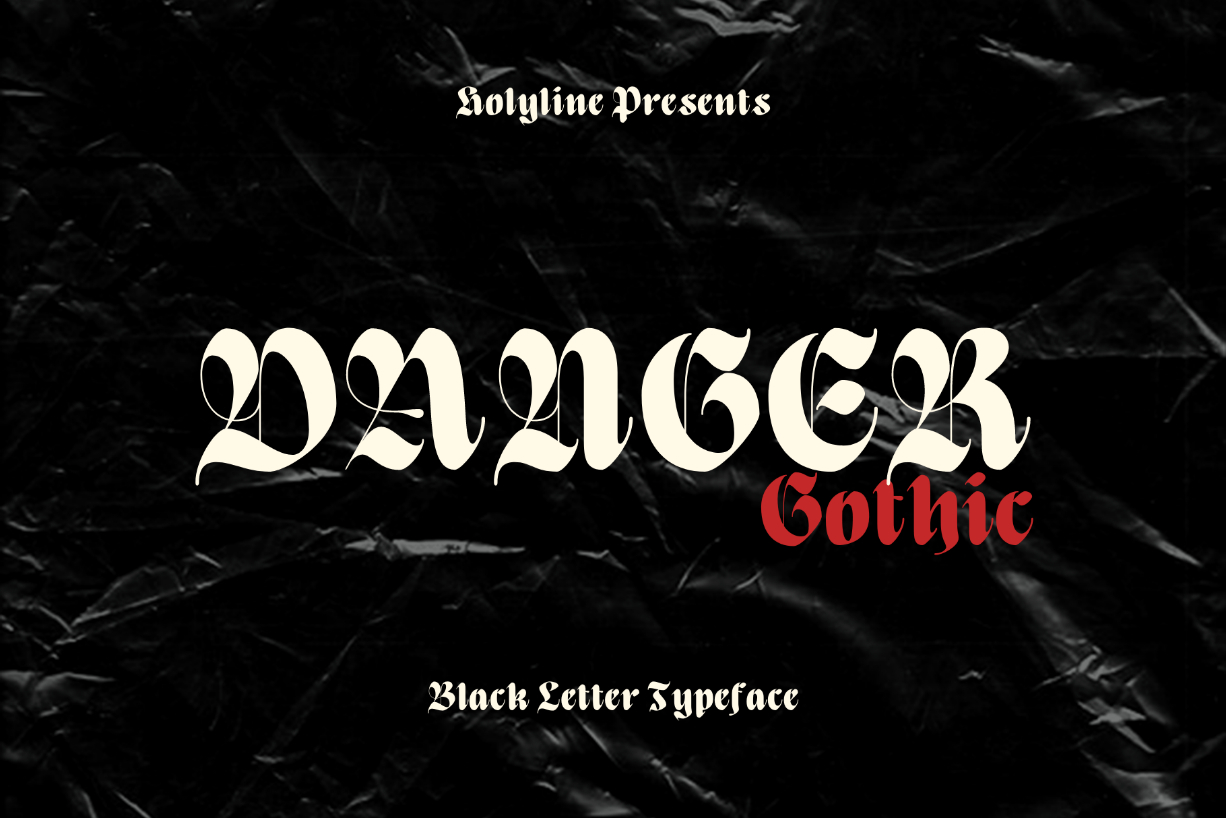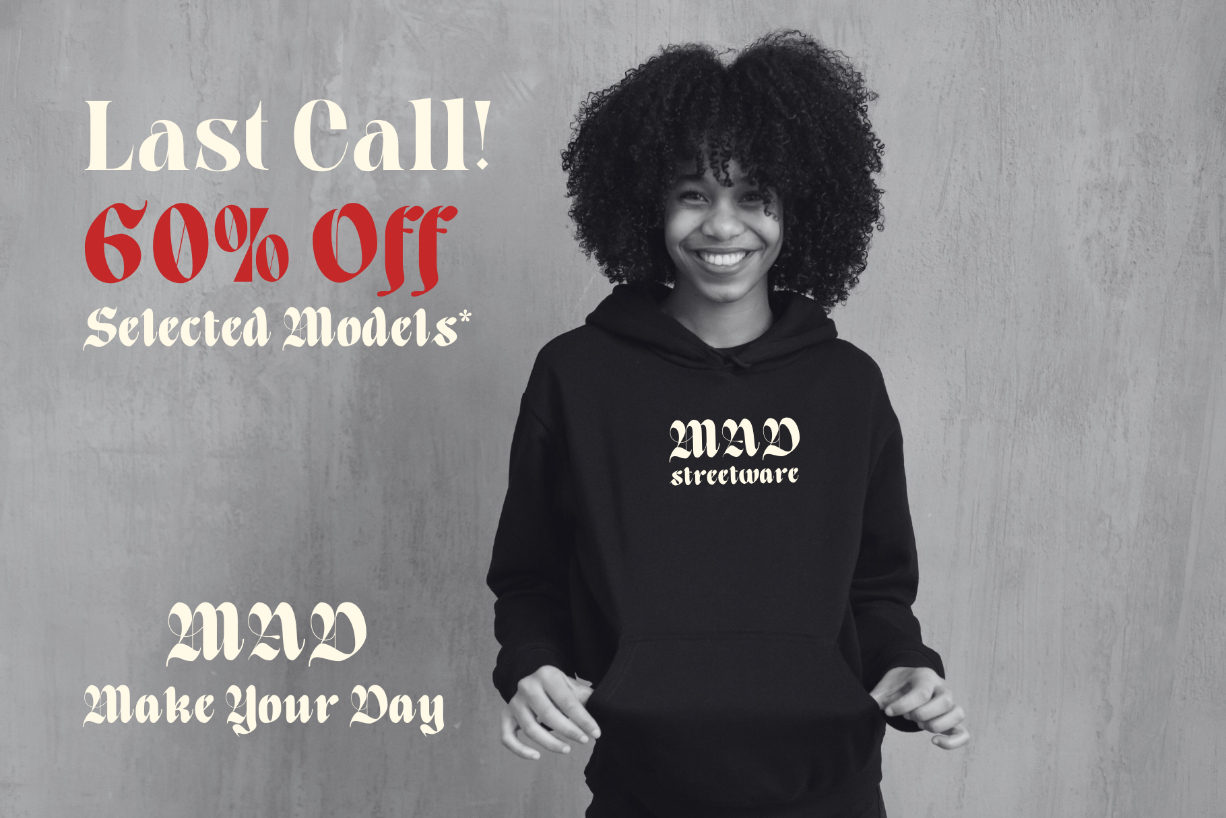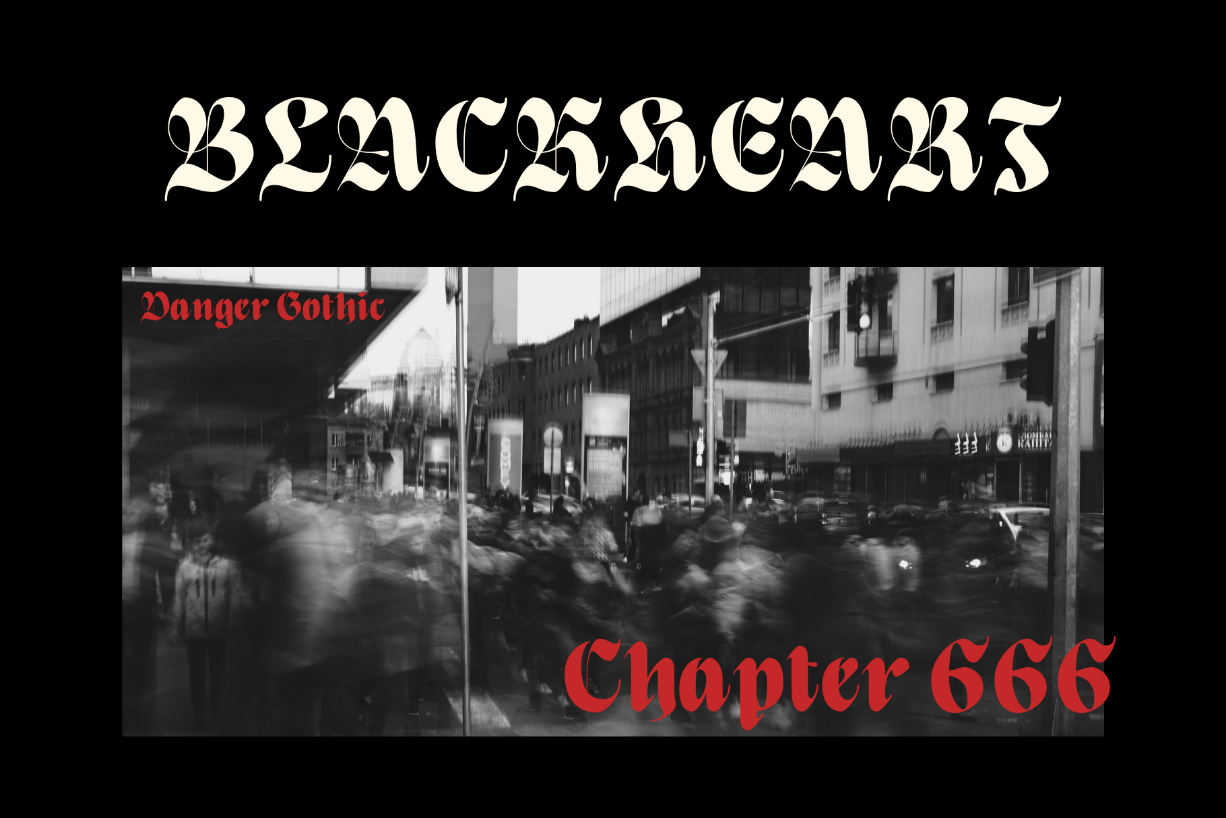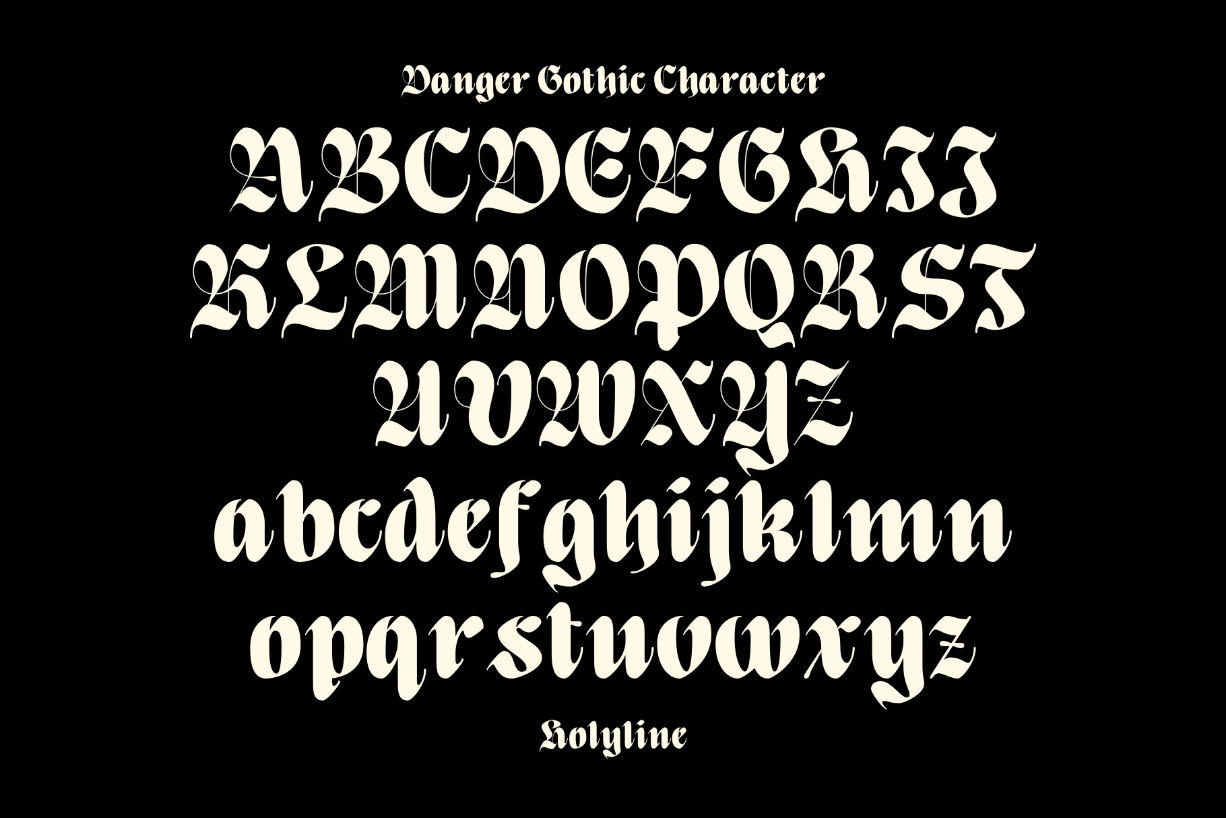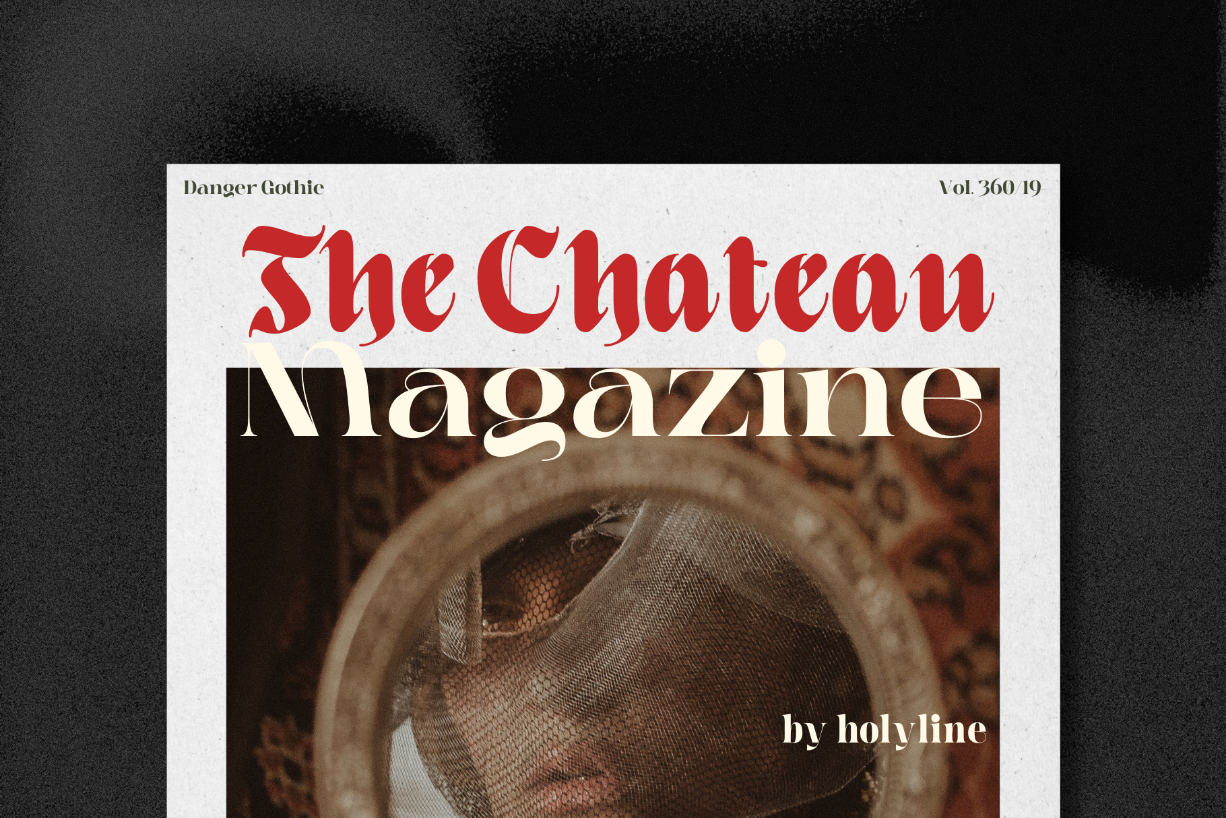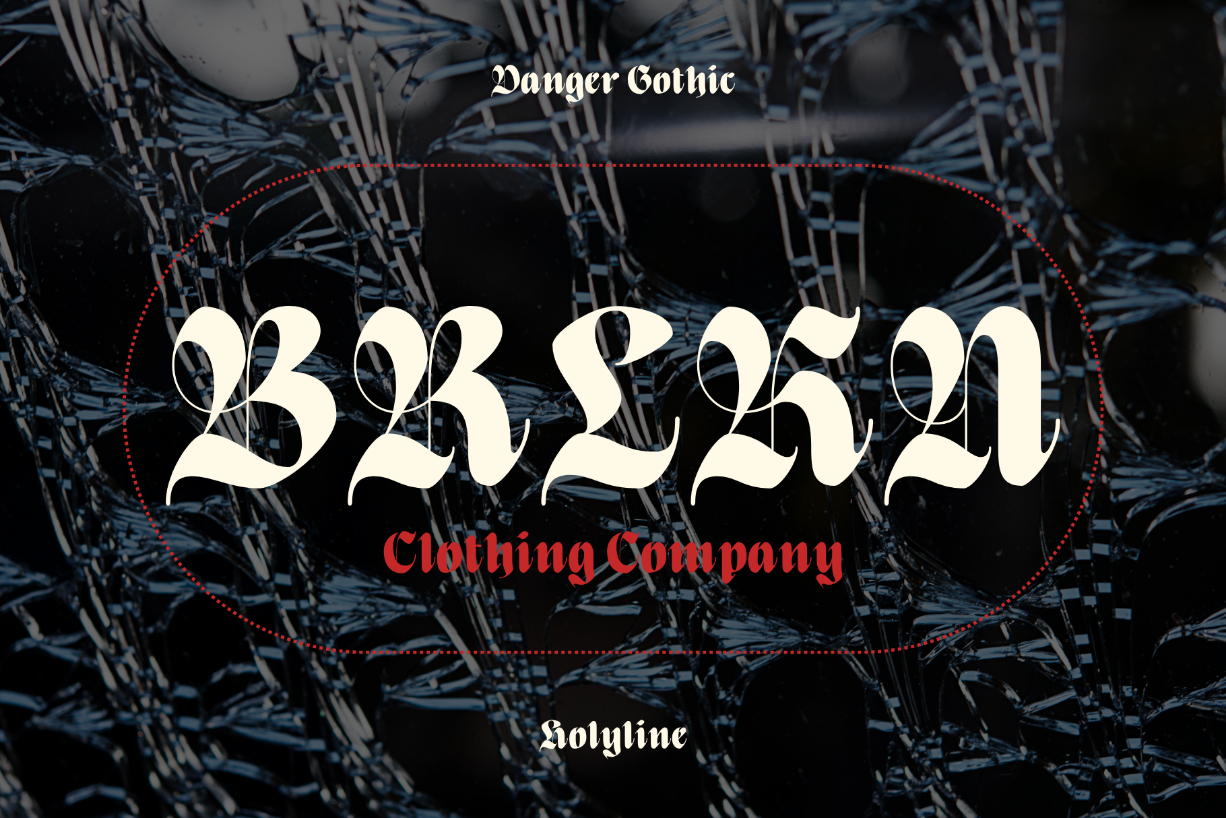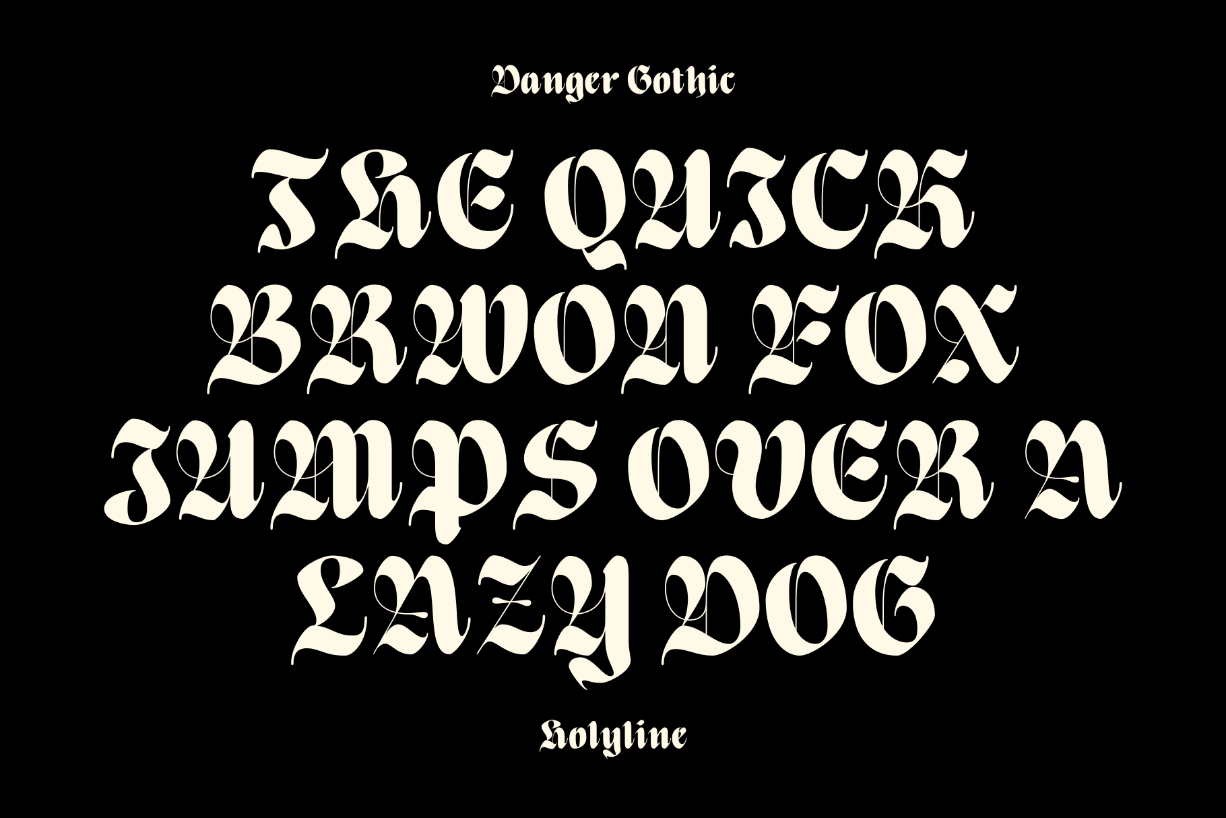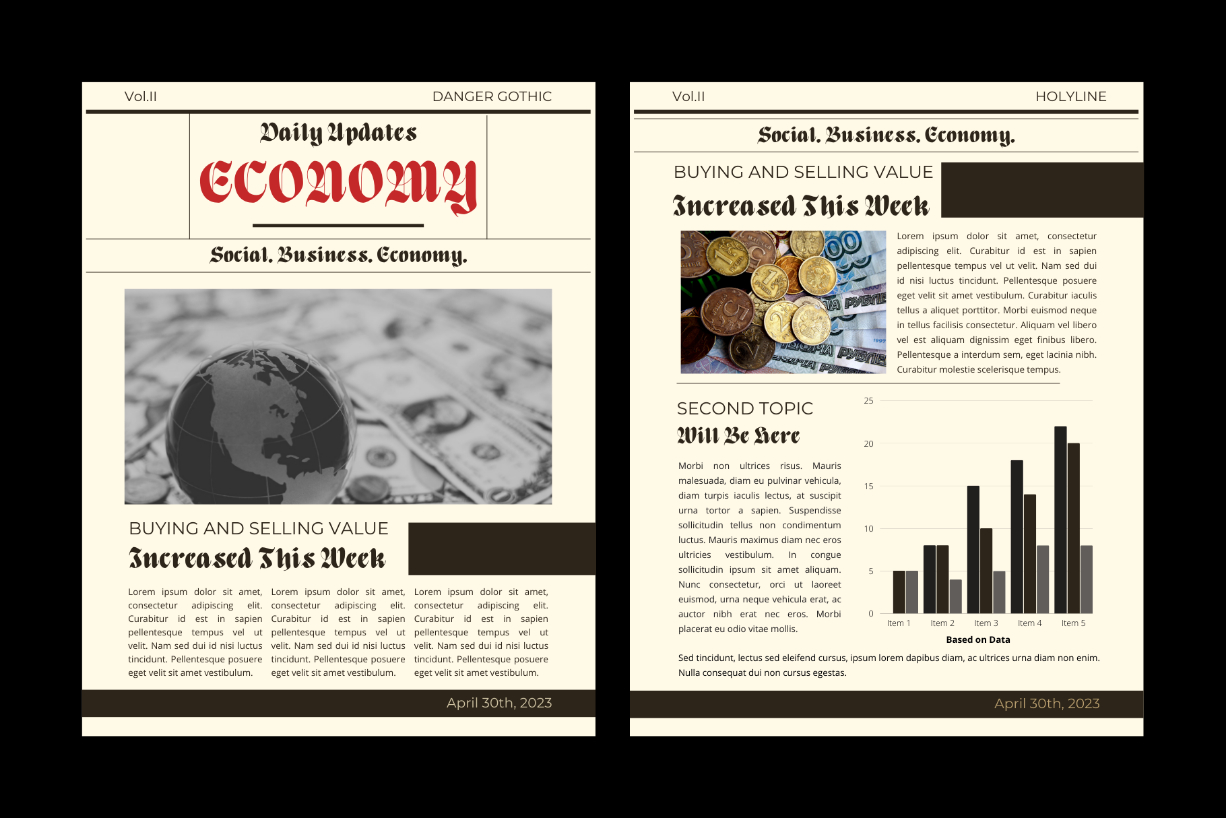
Danger Gothic Font
About Danger Gothic Font
Danger Gothic is a casual black letter typeface. This font comes with a modern and unique shape inspired by the Old English style. It’s very unique, playful, elegant, and very easy to combine with your design style. Danger Gothic is perfect for headlines, magazines, custom logos, packaging, quote, merchandise, watermark, social media posts, label, and if you want something new for your project.